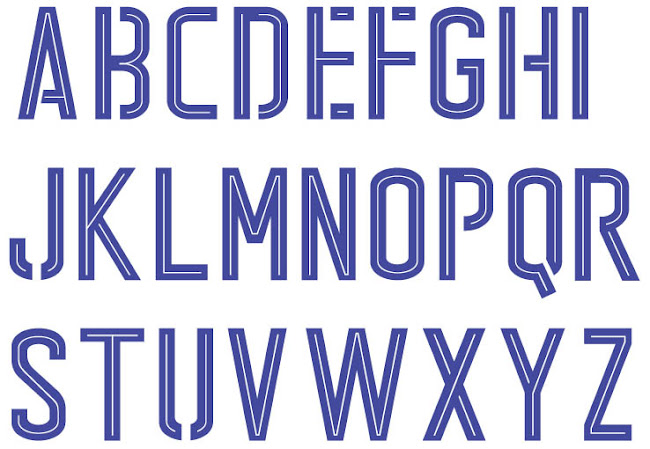
Italy Euro 2016 Font Revealed
Puma has created a new font for player names and numbers to go with the early launch of the Italy Euro 2016 Away Kit. The same font will also be used with the Italy 2016 Home Shirt, set to be released in November.
Italy became the first team to unveil its Euro 2016 Away Kit last September and already debuted the new Puma Italy Euro 2016 Away Jersey in the Euro 2016 qualifier against Malta.
Italy Euro 2016 Kit Font
This is the new typeface used for player names and numbers on the Italy Euro 2016 Kits (via The Modern Game).
Roughly based on Puma's previous efforts, the Italy Euro 2016 font is blue with a contrasting golden shadow, drawing inspiration from the color scheme of the Italy 2016 Away Kit.
A recurring theme with recent football shirt fonts, the Italy Euro 2016 Typeface boasts a white line on the inside of each number and letter, as well as a monochromatic federation badge at the bottom of the numbers.